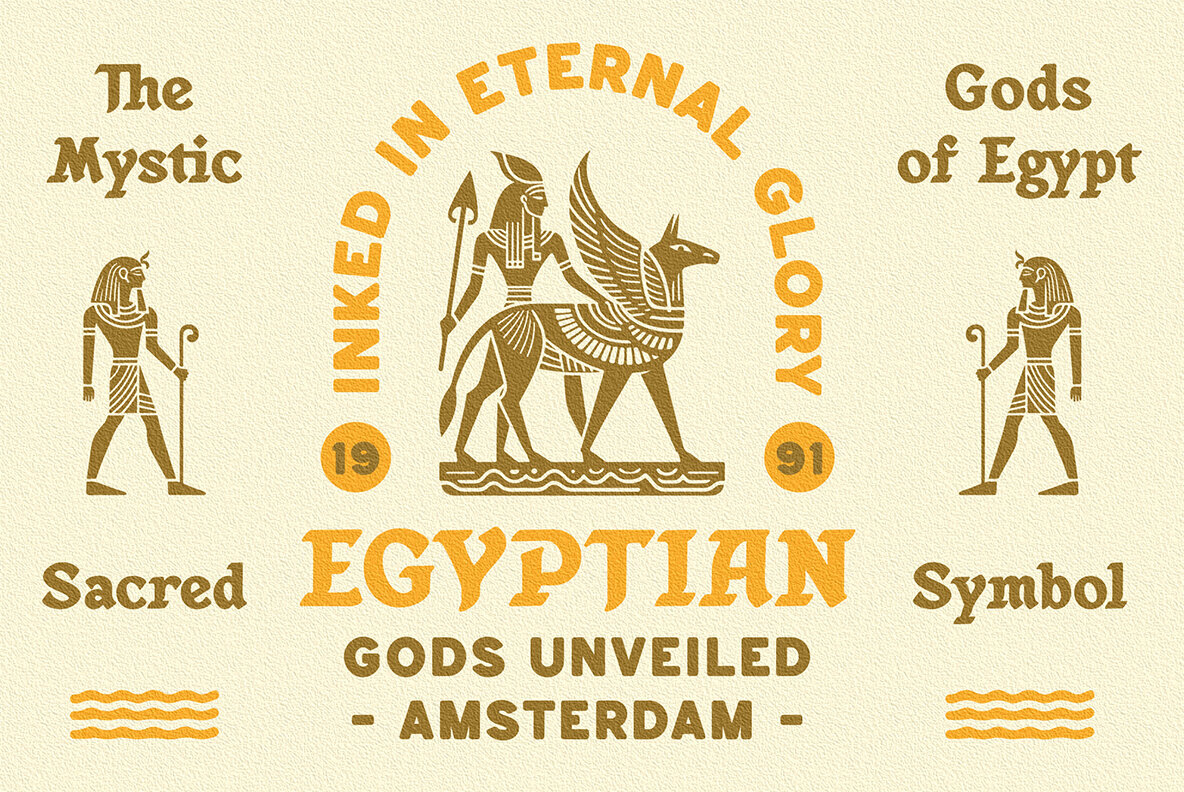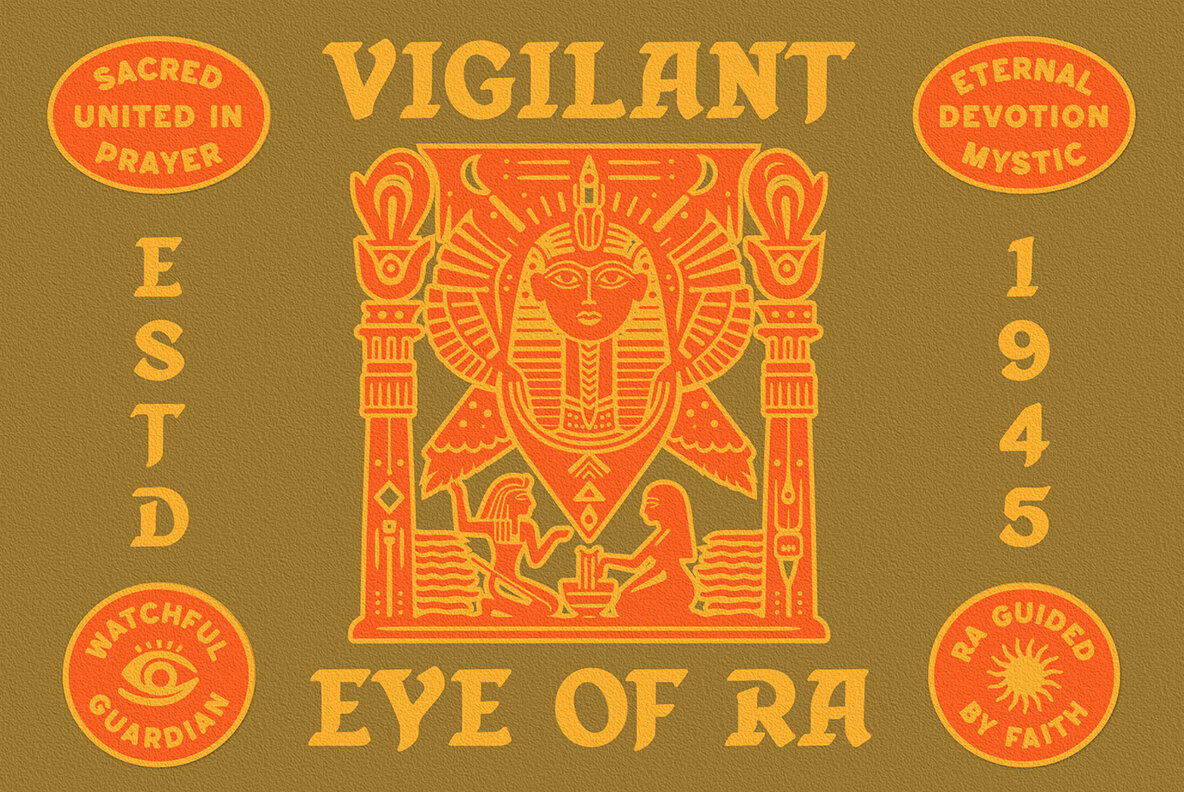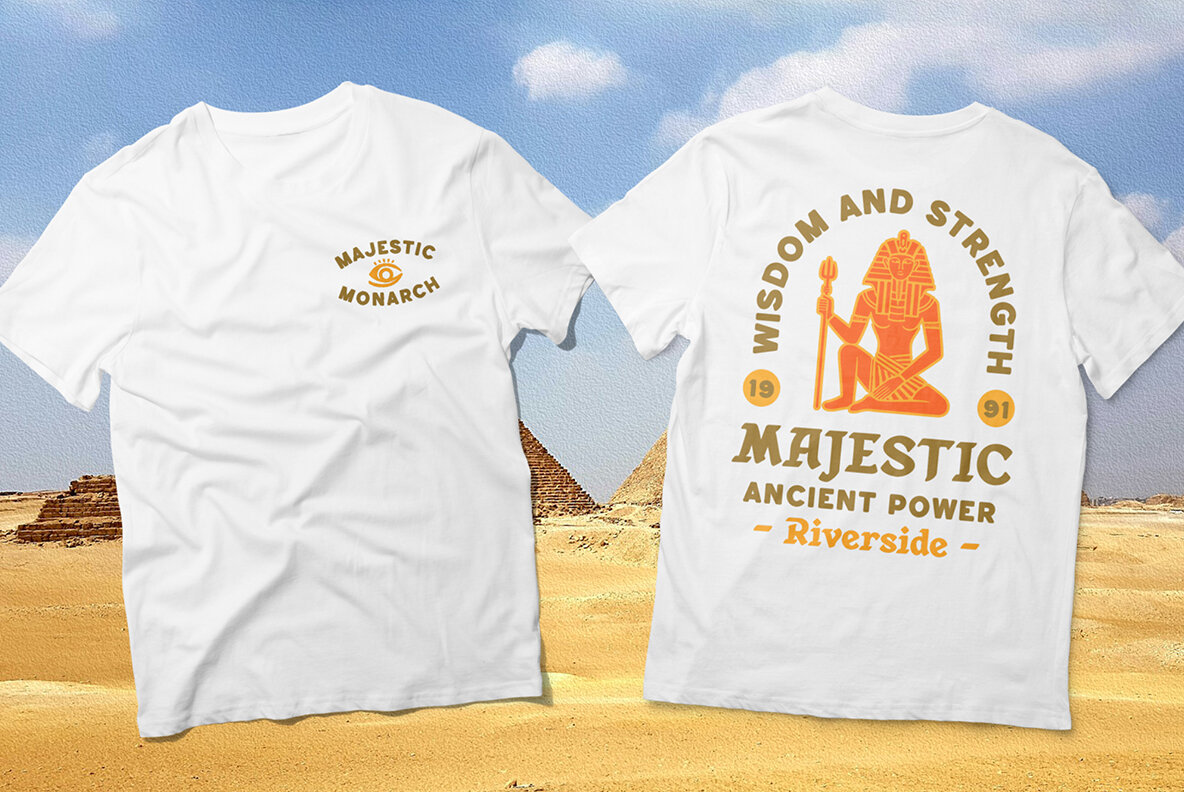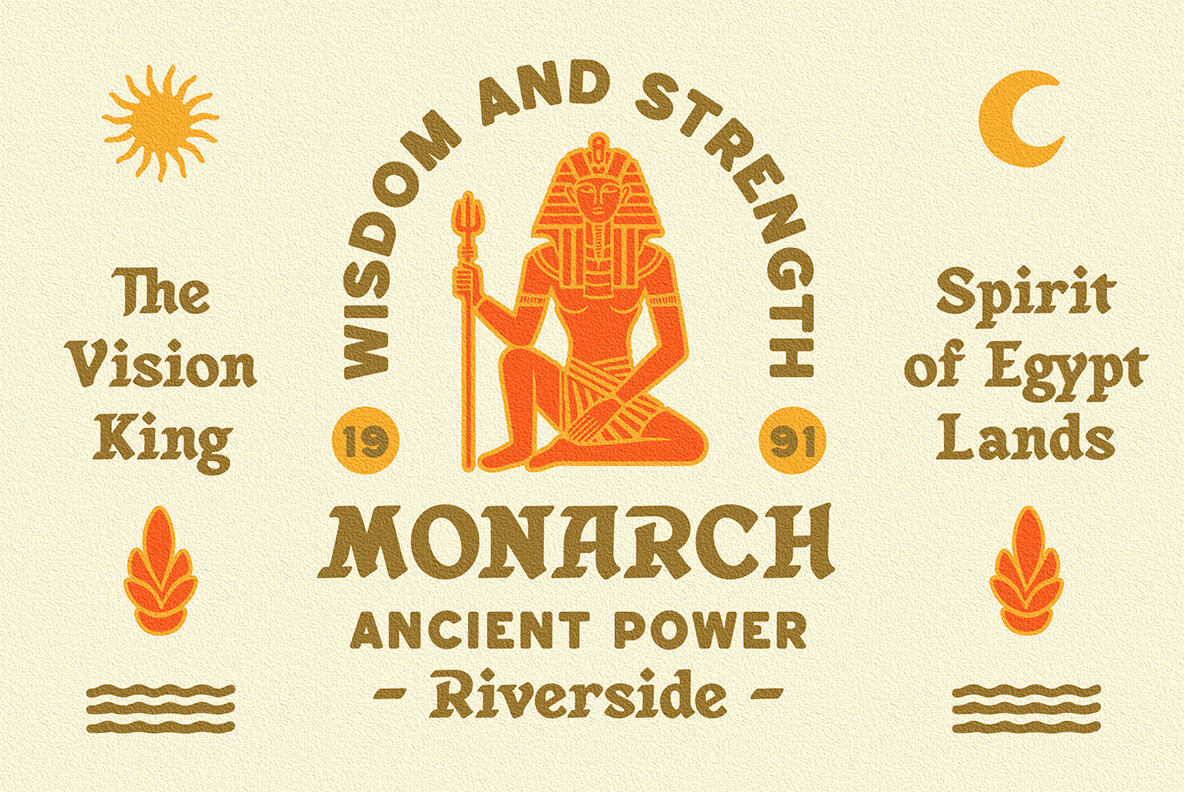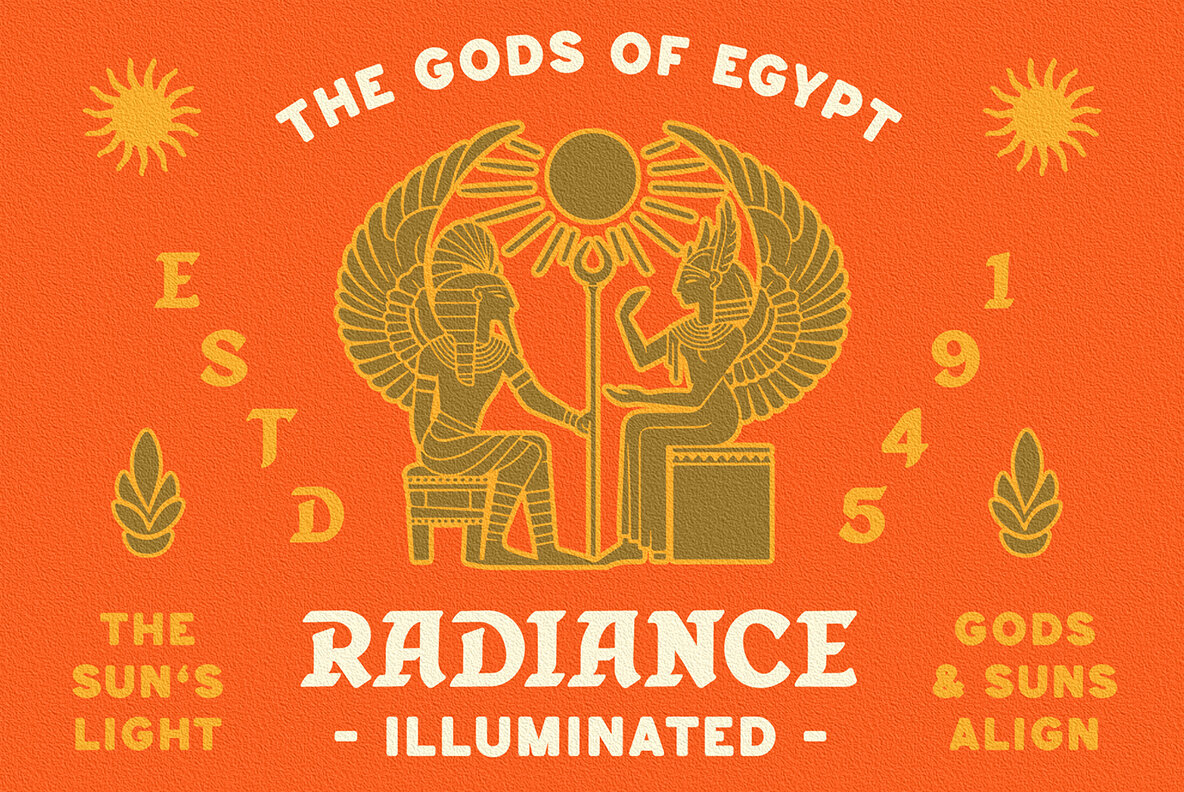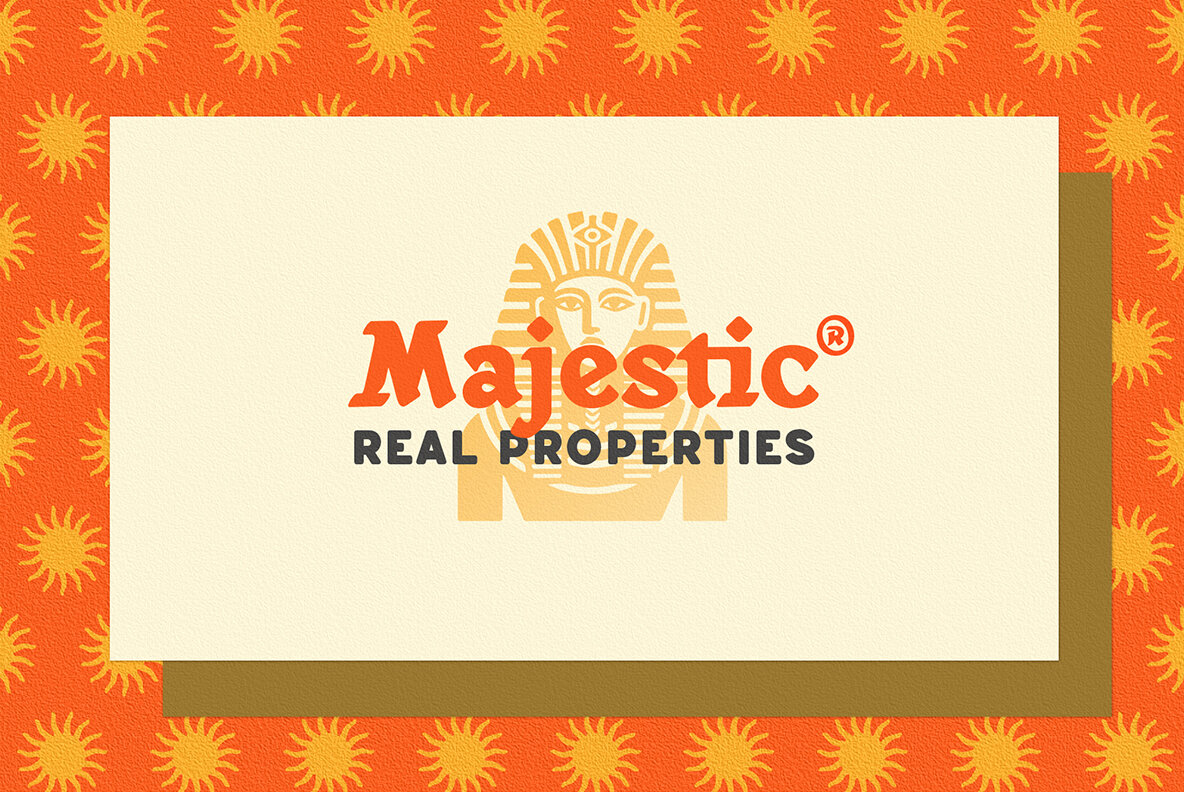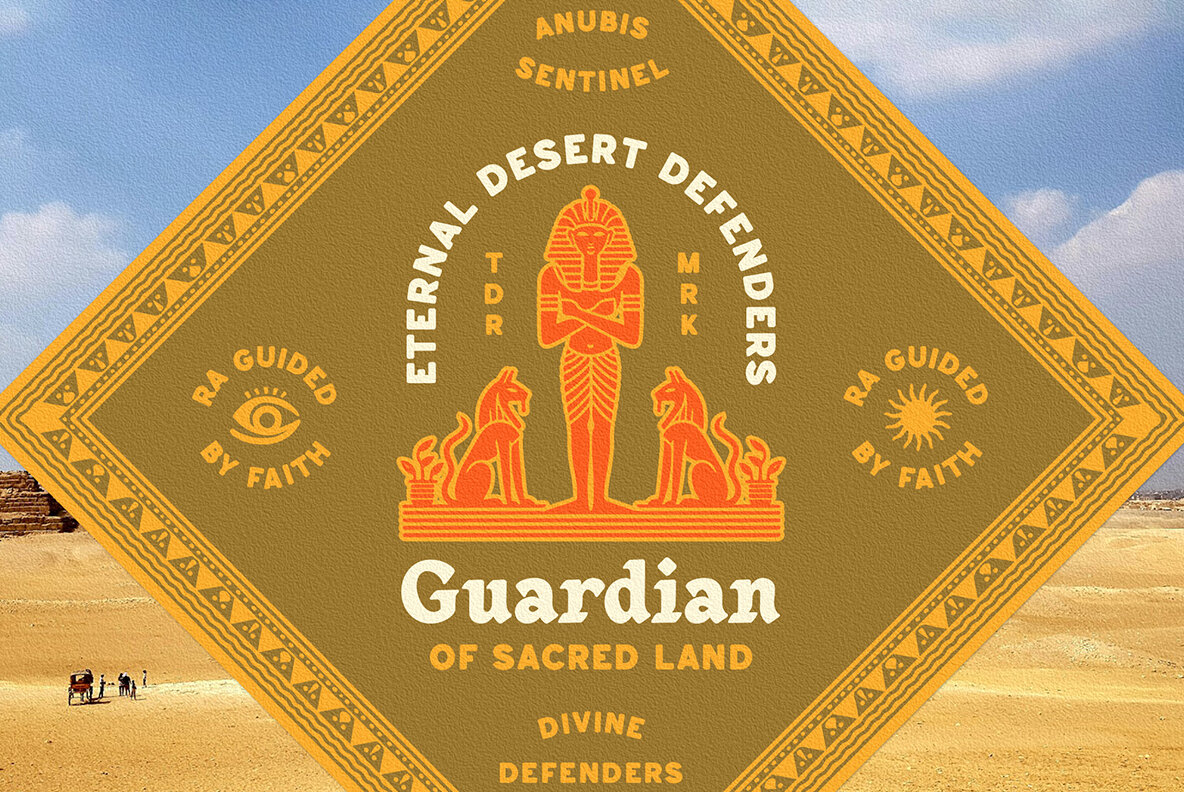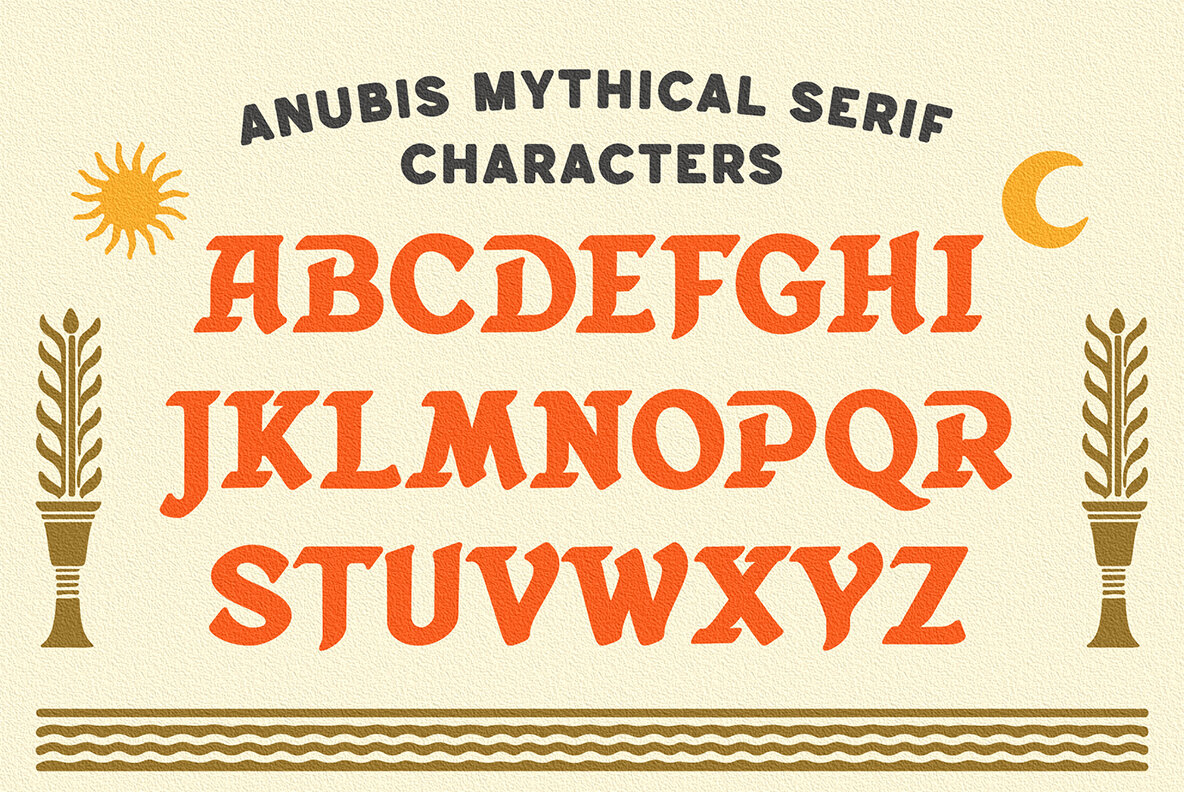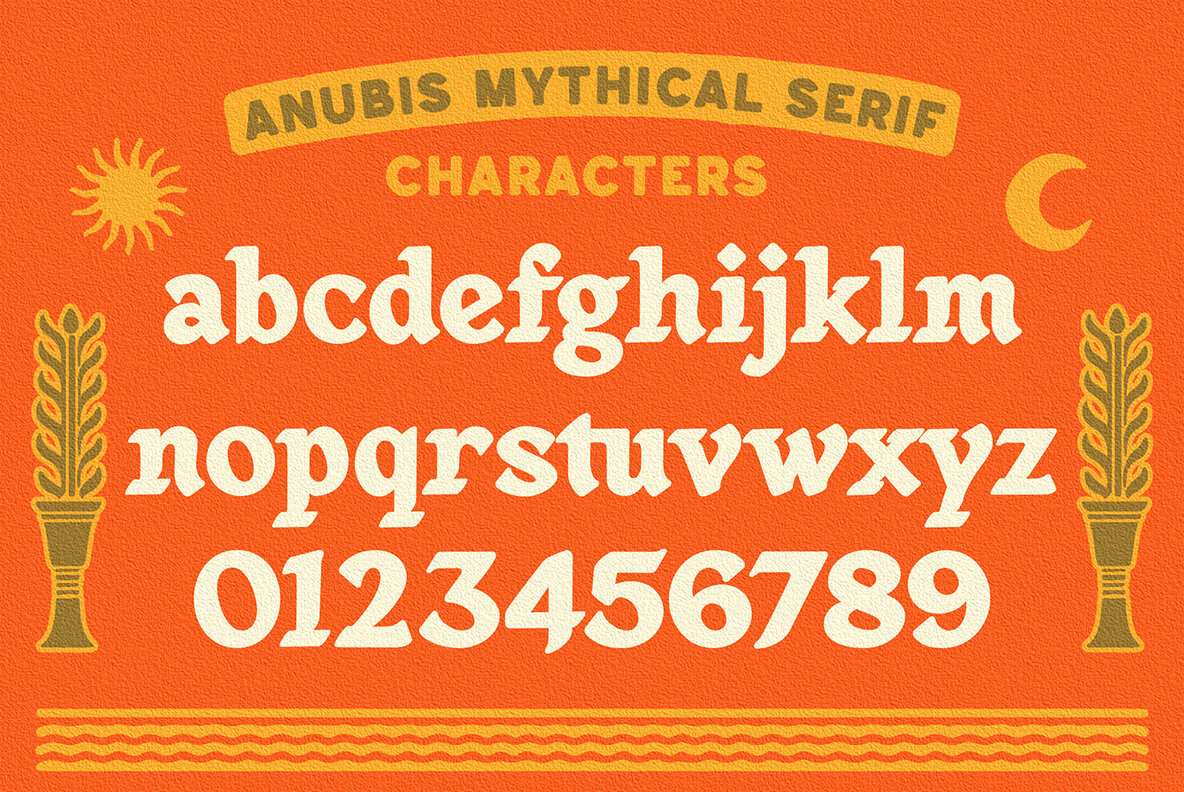
Anubis Mythical Font
Experience the allure of ancient Egypt with Anubis Mythical, a versatile font family featuring both serif and sans-serif styles. Designed for badges, logos, branding, and more, this font comes in three distinct styles: regular, rough, and stamp. Anubis Mythical boasts an array of features including uppercase, lowercase, numerals, symbols, punctuation, and ligatures in the serif font, while the sans serif offers all-caps, numerals, symbols, and punctuation.
- 6 fonts: Serif and Sans
- 3 styles: Regular, Rough, Stamp
Perfect for creating striking, Egyptian-themed designs, Anubis Mythical is your go-to font for adding a touch of ancient flair to any project. Unlock your creativity today with Anubis Mythical.